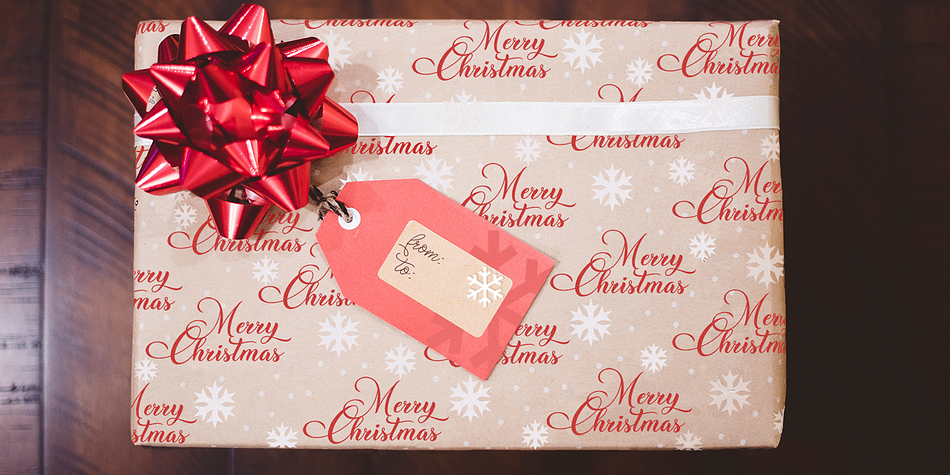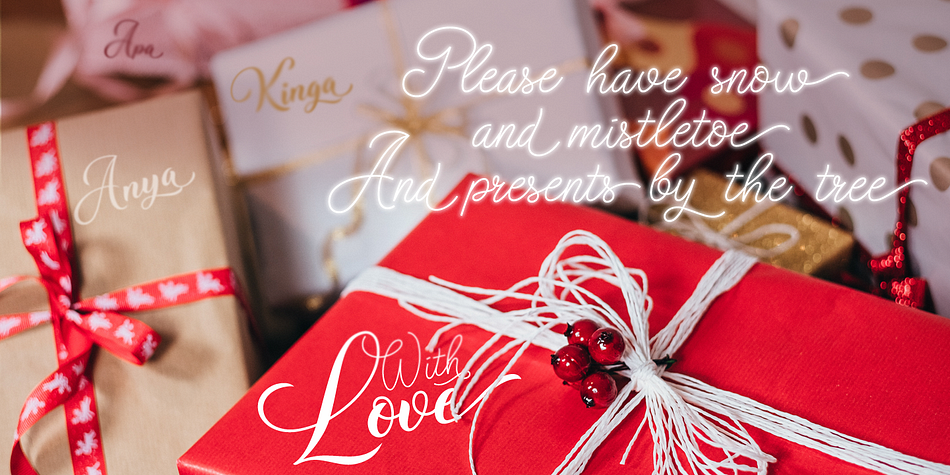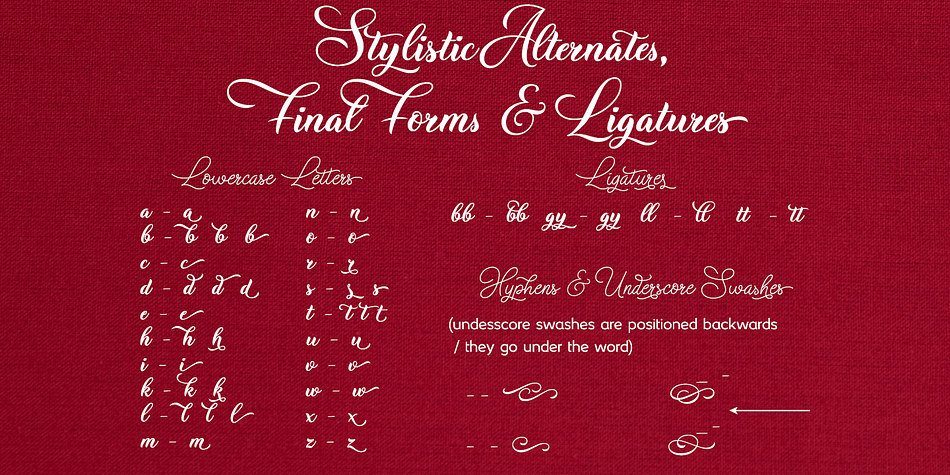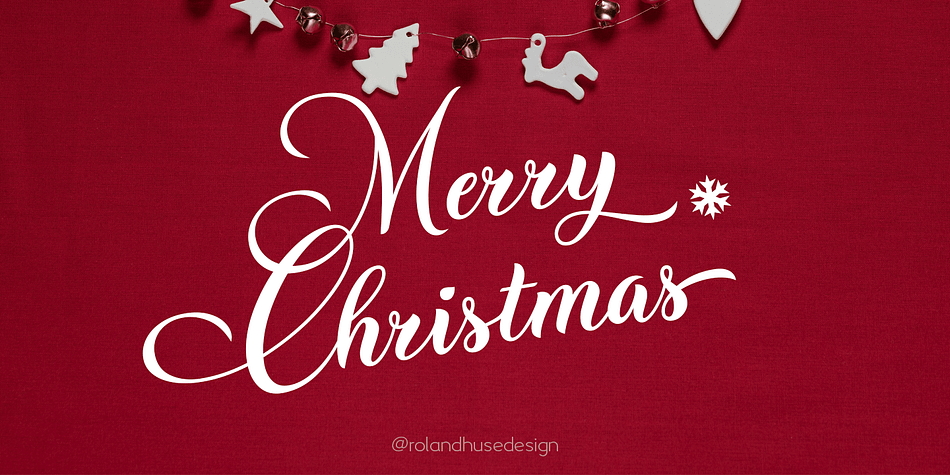
Designed by Roland Hüse, Christmas Wish is a modern calligraphy and script font family. This typeface has two styles and was published by Fonts by Roland Hüse.
CHRISTMAS WISH is a cursive brush calligraphy style script that comes in two weights: a Thin Monoline and a Brush Calligraphic version.
Contains Western, Eastern and Central European accented characters. There are 2 stylistic sets of lowercase letters b d h k l r s t and z. Also 2 sets for hypen and underscore for some flourishes before, after and under some shorter words.